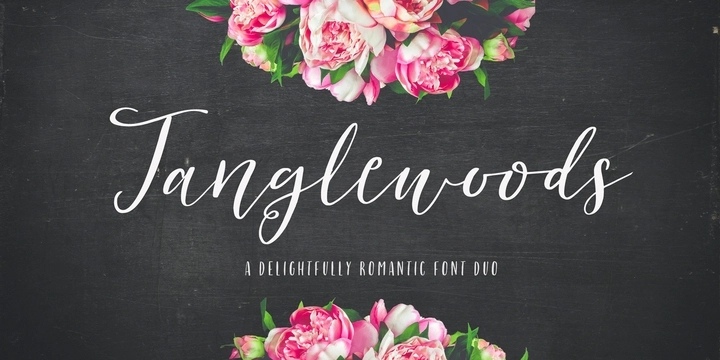
Tanglewoods Font
Tanglewoods Font is perfect for rustic branding, outdoor-themed projects, artisanal product packaging, invitation cards, and nature-inspired social media graphics. Its organic, hand-crafted style adds warmth and character to any design.
What makes Tanglewoods Font exciting is its natural, flowing letterforms that evoke a sense of authenticity and creativity. The font’s unique charm makes projects feel personal, approachable, and visually engaging.
The Tanglewoods Font family includes Regular, Bold, Italic, and Decorative variations, giving designers flexibility to create layered typography and diverse compositions.